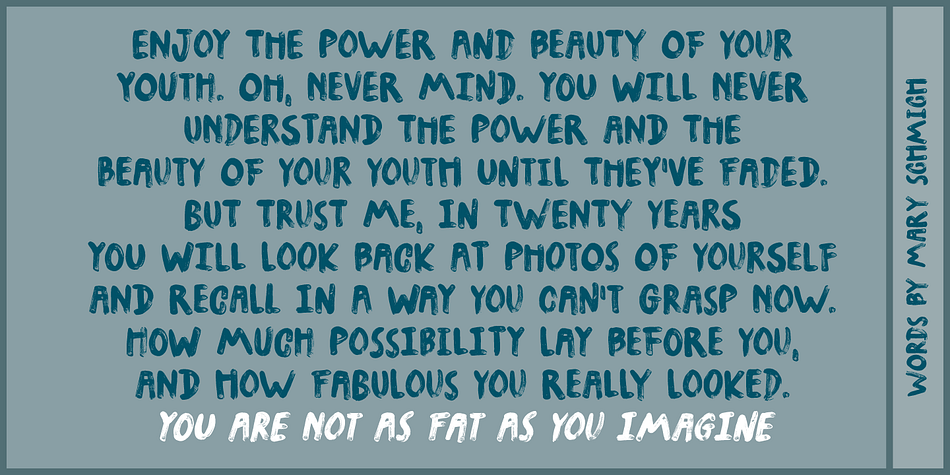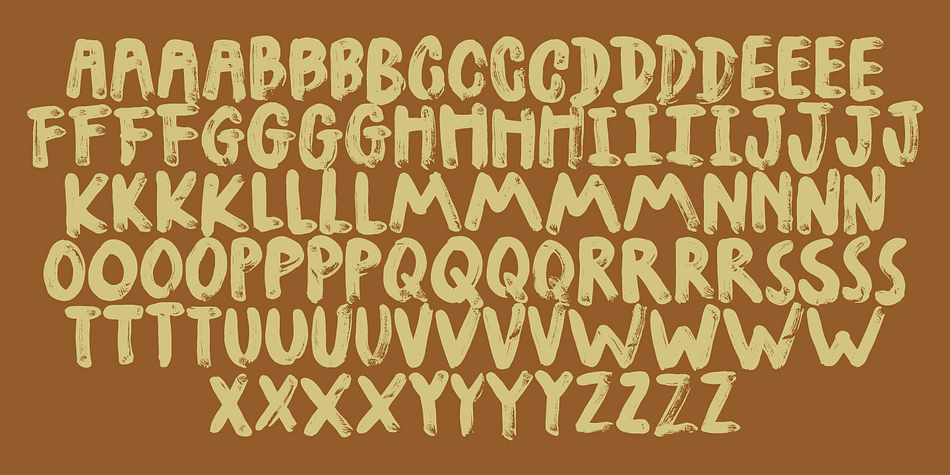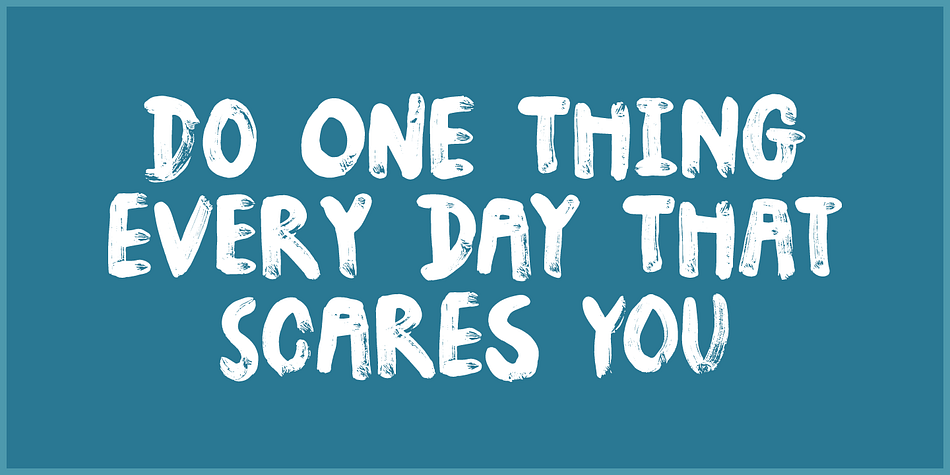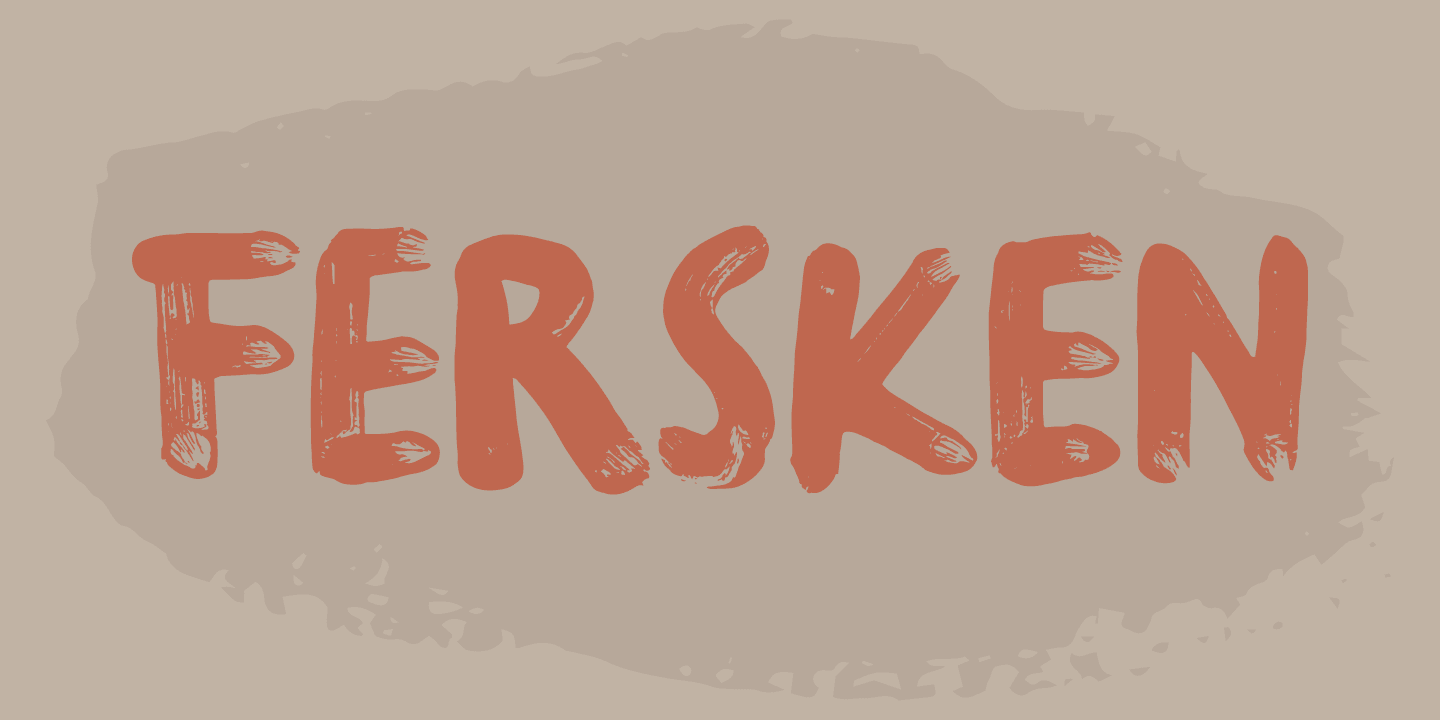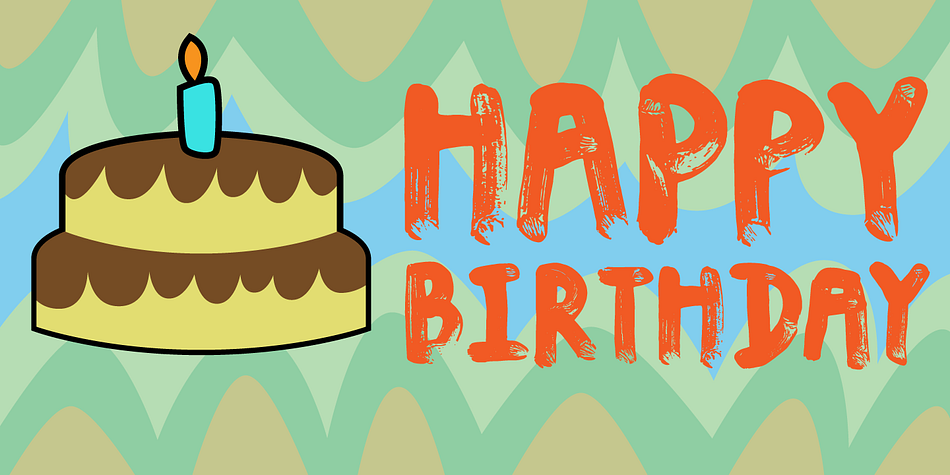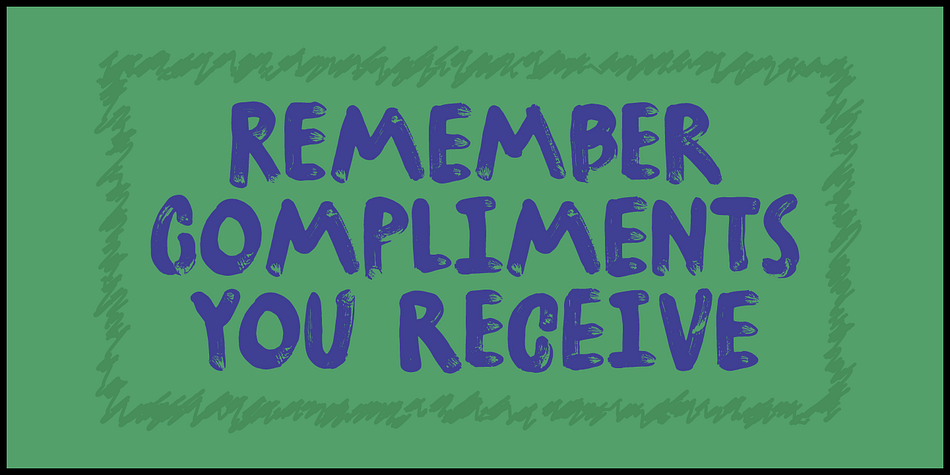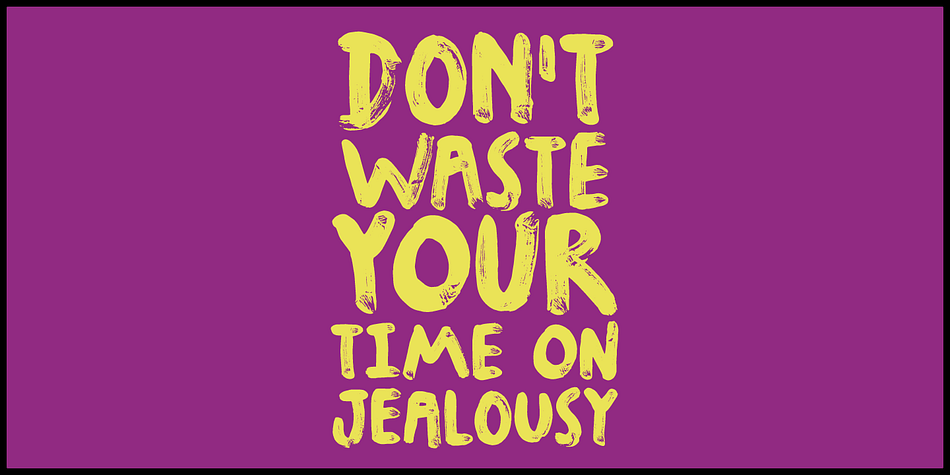
Designed by Jakob Fischer, Fersken is a hand display and brush display font family. This typeface has two styles and was published by Pizzadude.dk.
Made with a rounded brush, which made traces like it was drawn with a finger. 4 different versions of each letter, along with loads of international characters - enough to make your invitations, posters, postcards, headlines look more like authentic painted letters!